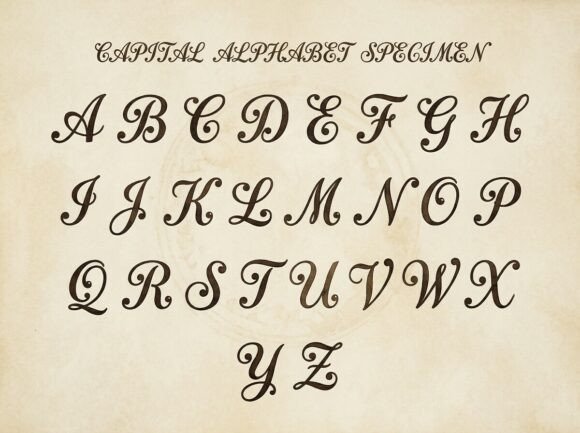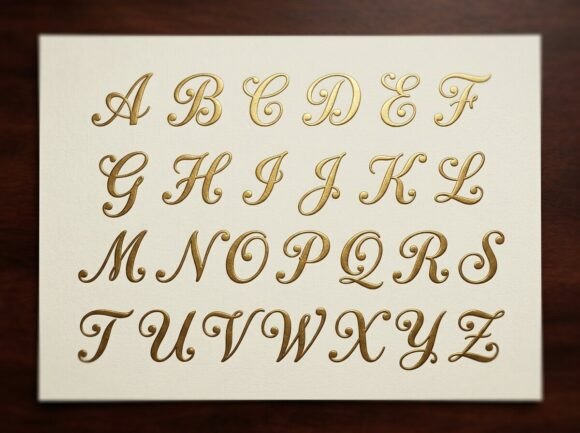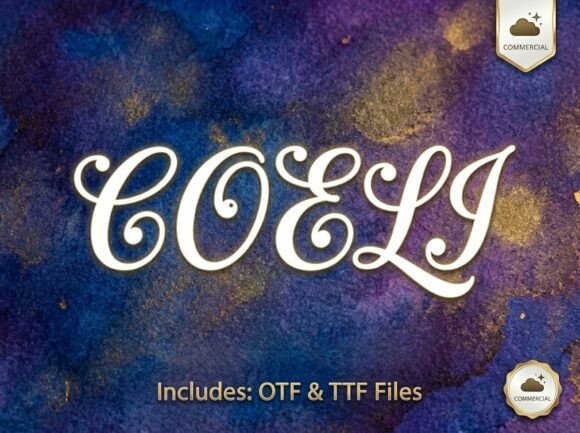
Introducing Coeli Font: The Ultimate Decorative Display Font
Are you tired of using the same old fonts for your designs? Do you want to make a statement and stand out from the crowd? Look no further than Coeli Font, a stunning decorative display font that’s sure to turn heads. With its unique artistic elements and strong visual personality, this font is perfect for creators who want to break away from the ordinary and add a touch of elegance to their work.
What Makes Coeli Font Special?
Coeli Font is a versatile decorative display font that’s designed to be the center of attention. Its unique artistic elements and strong visual personality make it perfect for a variety of design projects, from bold headlines and artistic logos to creative packaging and decorative initials. Whether you’re a designer, craftsperson, or DIY enthusiast, this font is sure to inspire your creativity and take your work to the next level.
Key Features of Coeli Font
- Unique Artistic Elements: Coeli Font features unique artistic elements that set it apart from other fonts. Each letter is carefully crafted to make a statement and add a touch of elegance to your designs.
- Strong Visual Personality: This font has a strong visual personality that’s sure to grab attention. Its bold and eye-catching design makes it perfect for headlines, logos, and other design elements that need to stand out.
- Versatile: Coeli Font is versatile enough for a variety of design projects, from bold headlines and artistic logos to creative packaging and decorative initials.
- Professional and Polished Finish: Despite its bold and artistic design, Coeli Font maintains a professional and polished finish that’s perfect for high-end designs.
⚠️ IMPORTANT NOTE BEFORE PURCHASE: Coeli Font is an ALL-CAPS (Uppercase Only) display typeface. It does not include lowercase letters. It is specifically designed for high-impact headlines, logos, and decorative initials where every letter is a work of art.
Why Choose Coeli Font?
There are many reasons why Coeli Font is the perfect choice for designers and crafters. Here are just a few:
- Add a Touch of Elegance: Coeli Font adds a touch of elegance and sophistication to any design project.
- Stand Out from the Crowd: With its unique artistic elements and strong visual personality, Coeli Font is sure to make your designs stand out from the crowd.
- Perfect for High-End Designs: Coeli Font is perfect for high-end designs that require a professional and polished finish.
How to Use Coeli Font
Coeli Font is easy to use and can be incorporated into a variety of design projects. Here are a few ideas to get you started:
- Headlines and Titles: Use Coeli Font to create bold and eye-catching headlines and titles that grab attention.
- Logos and Branding: Coeli Font is perfect for creating artistic logos and branding elements that make a statement.
- Packaging and Labels: Use Coeli Font to add a touch of elegance and sophistication to your packaging and labels.
- Decorative Initials: Coeli Font is perfect for creating decorative initials that add a touch of elegance to any design project.